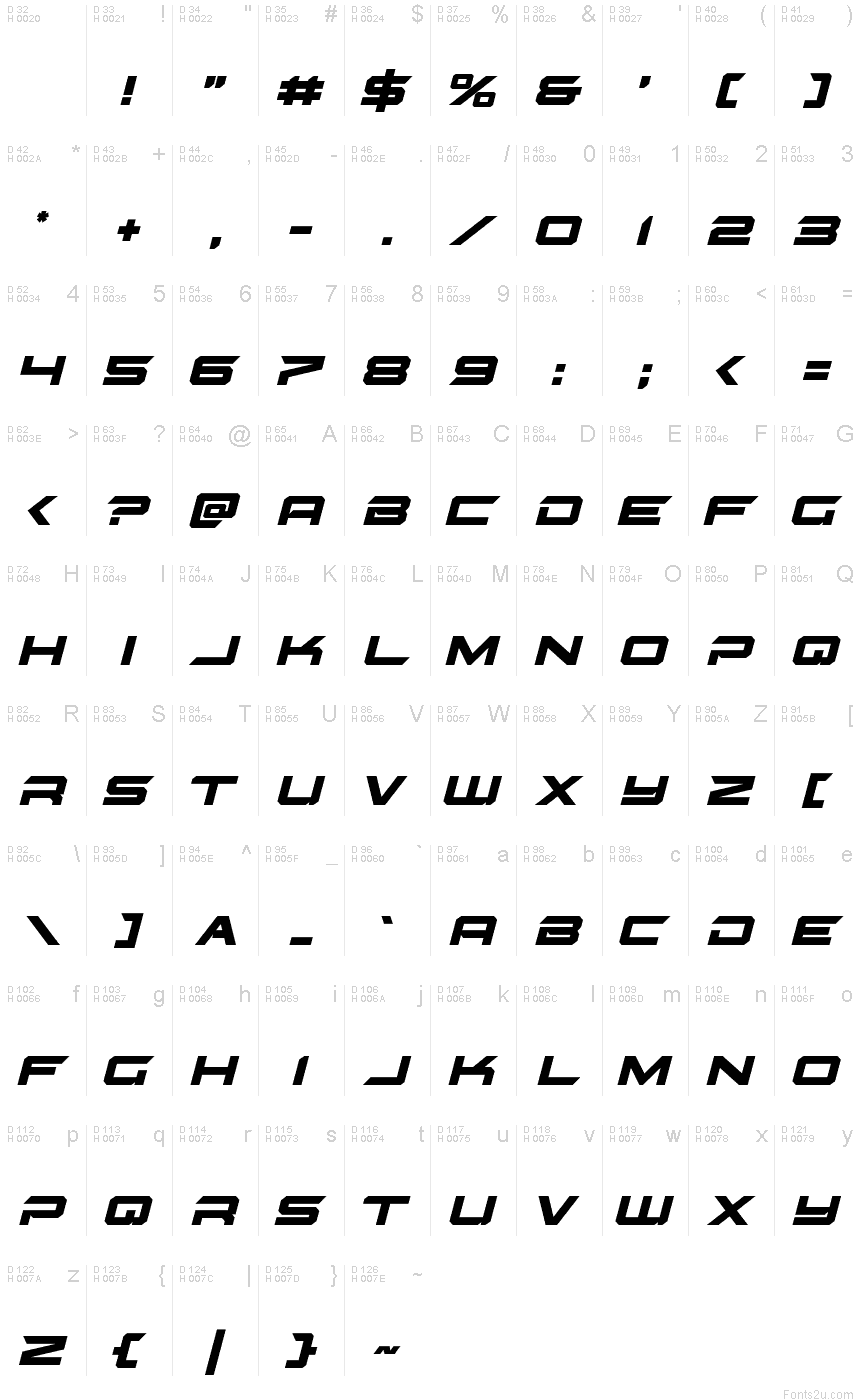
Gypsy Killer Italic by Iconian Fonts is a free futuristic display font with a broad, aerodynamic profile. Its sharply cut letters lean forward with unmistakable speed.
The wedge-shaped forms echo spoilers and angular machine parts, connecting readily with motorsport imagery. That makes the font a convincing choice for racing posters, vehicle branding, action-game title screens, and electronic music packaging. In each setting, its clipped corners can repeat the geometry of cars, spacecraft, or mechanical illustrations, turning the lettering into part of the artwork rather than a separate label.